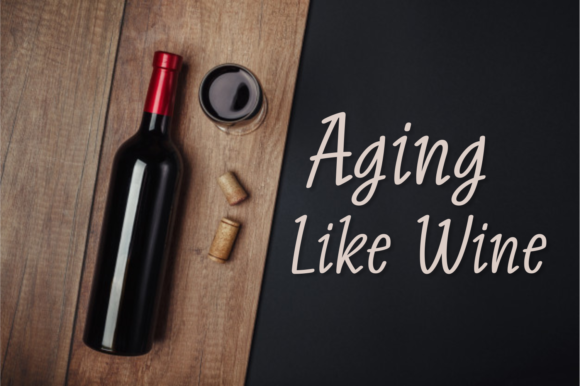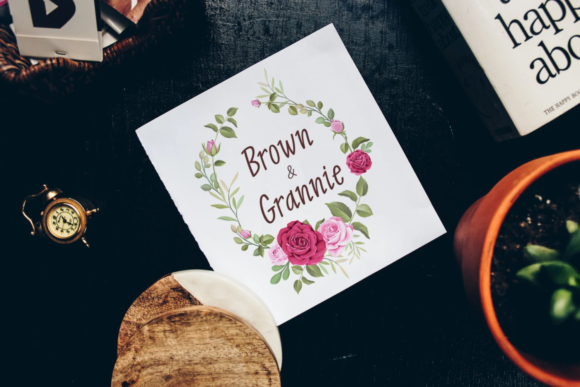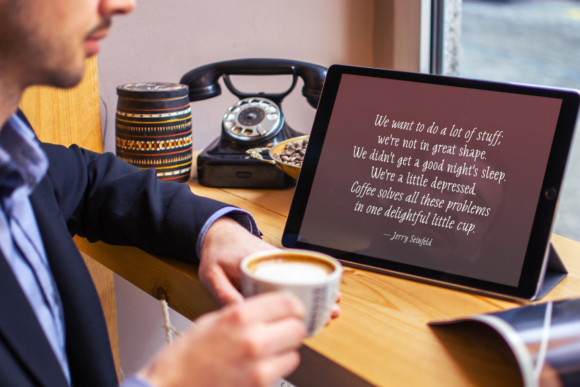
HomeScript FontsAging Like Wine Font Script Fonts Aging Like Wine Font FacebookXPinterestWhatsApp Aging Like Wine Font Poster 2 Aging Like Wine Font Poster 3 About Aging Like Wine Font Aging Like Wine is a casual and modern script font with a unique style. Get inspired by its friendly charm! DOWNLOAD NOW People also explored Naftera Family Font Star Glory Font Beauty Flowers Font Status Font Gorva Font Helio Font Newera Font Basic Objects Beauty Stella Font 320 0 TagsAging Like Wine Font Previous articleOutright Stories FontNext articlePatton Font LEAVE A REPLY Cancel reply Comment: Please enter your comment! Name:* Please enter your name here Email:* You have entered an incorrect email address! Please enter your email address here Website: Save my name, email, and website in this browser for the next time I comment. Personal Use Free Delions Personal Use Free Read more about this font Madison Script Personal Use Free Read more about this font Engine Personal Use Free Read more about this font Girls Personal Use Free Read more about this font BLOG Best Fonts for YouTube Videos: Make Your Thumbnails Stand Out Best Fonts for YouTube Videos: Make Your Thumbnails Stand Out Choosing the right font can make a massive difference in how your YouTube videos perform.... Fonts That Capture the Spirit of New York City The 10 Best Handwriting Fonts to Add Personality to Your Designs Transform Your Website: Elevate Your Typography with 7 Best Web Font Generators